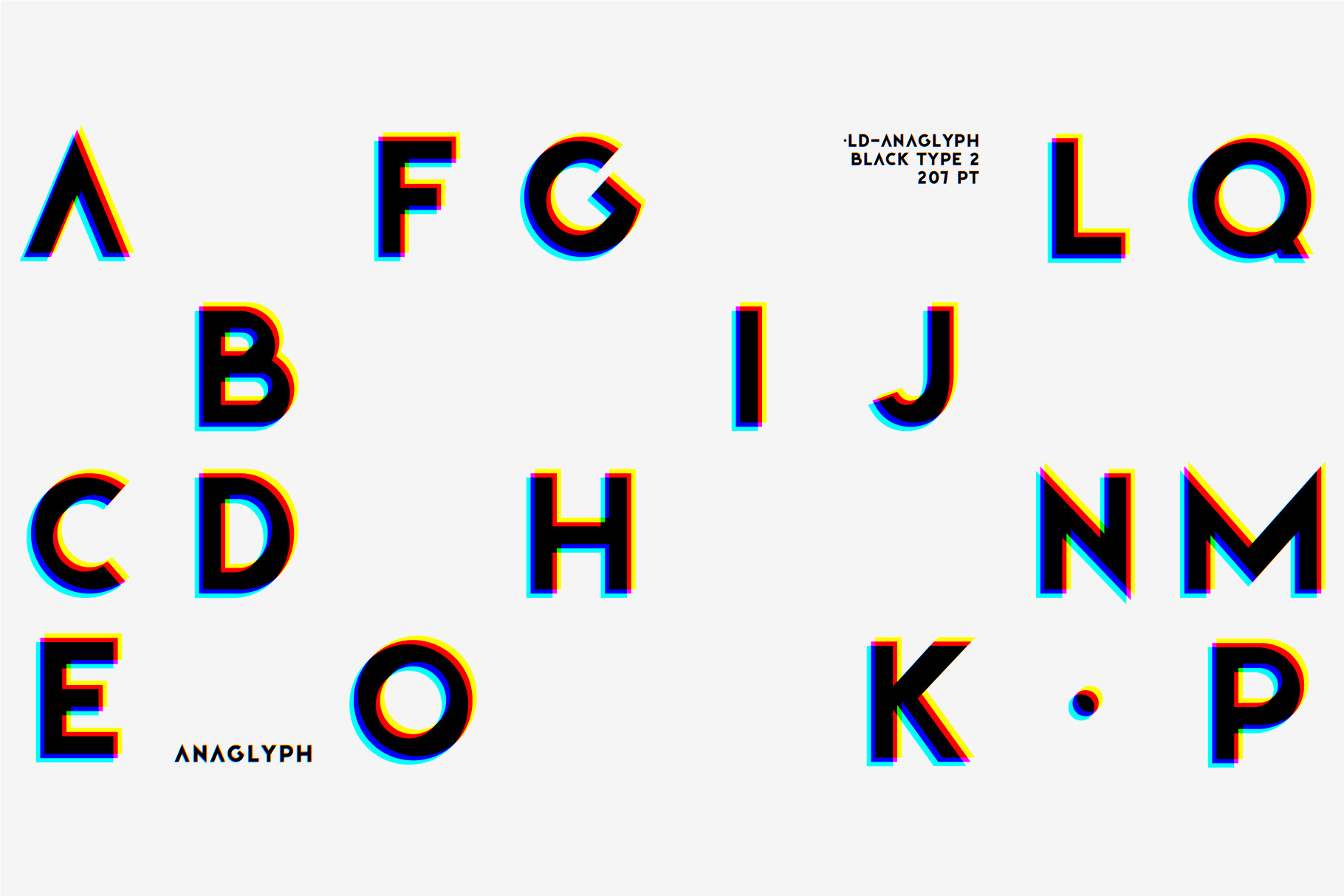
STEREO. Font Family.
Introducing incredible COLOR STEREO font. Unique font family with anaglyph effect - a novelty in the field of color fonts. Inspired by global trends in contemporary design with a touch of retro 90s, electric music and minimalistic purity of glyphs. Truly a reflection of modern POP culture. Font is ideal in entertainment design. Night club poster design, fashionable business card, website title, magazine illustration - there are countless options for using it. Font family has two thicknesses - bold & regular, 3 types of stereo effect, 6 font colors with stereo effect. Font consists of letters of the same height without division into uppercase and lowercase glyphs.
- 2 thicknesses: Bold, Regular
- 3 types of stereo anaglyph effect
- 6 font colors with stereo effect
- Kerning